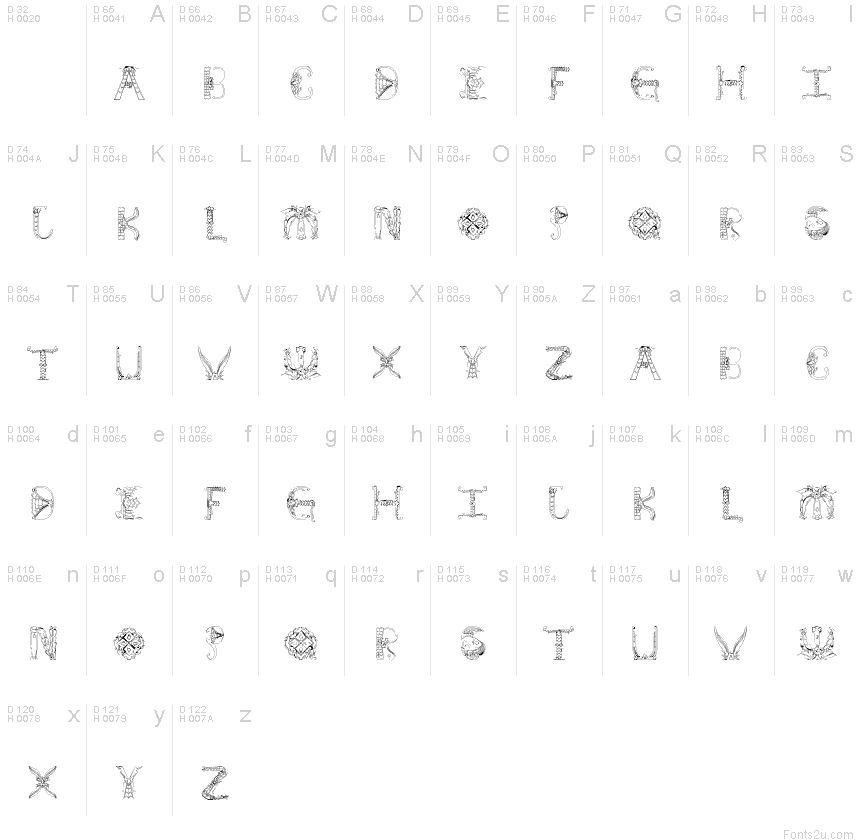
Empress
A font I created for my Typography class, Inspired and designed for a project based off of Rose Studio - Bringing Chinese craftsmanship and traditionalism back to life
Anabel Anderson